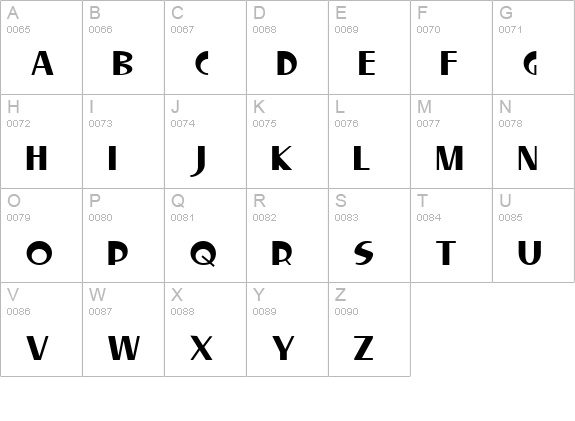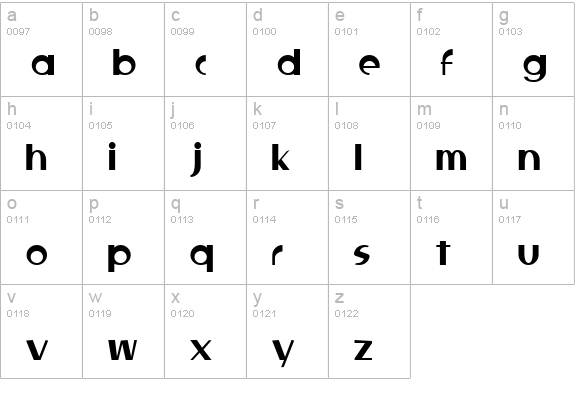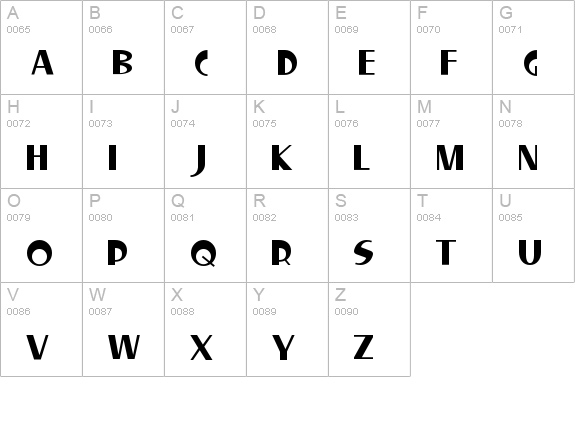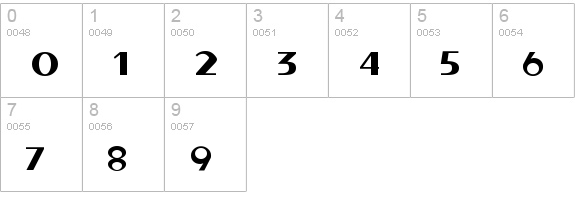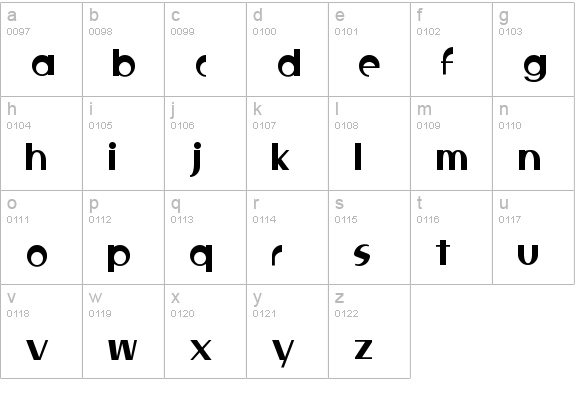
Locked Window Font Details
Introducing the captivating Locked Window font, a stylish and modern typeface that is sure to make your designs stand out. This unique font features sleek lines and a contemporary feel, perfect for a wide range of projects. Whether you are designing posters, logos, or branding materials, Locked Window is sure to make a lasting impression. What sets Locked Window font apart is not only its sleek design but also its versatility. This font can be used for a variety of design projects, from elegant invitations to eye-catching social media graphics. Its clean lines and modern aesthetic make it a great choice for any design need. The best part? Locked Window font is completely free to download at FontsMarket.com. That’s right, you can add this stunning font to your collection without breaking the bank. So why wait? Download Locked Window font today and elevate your design projects to the next level.